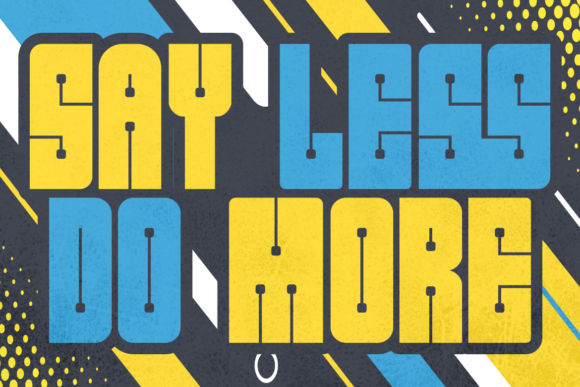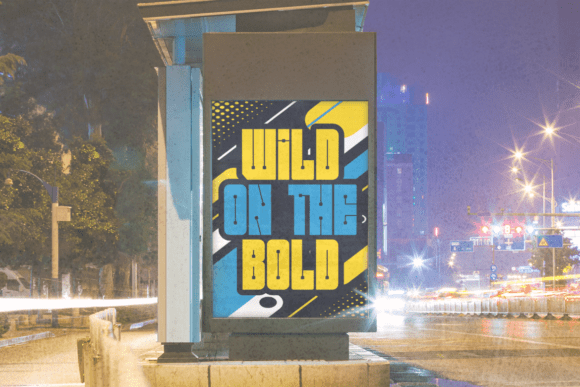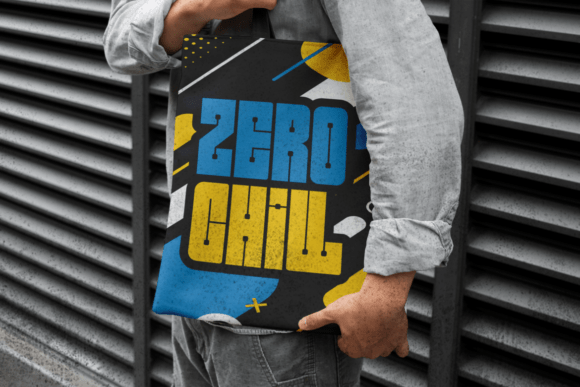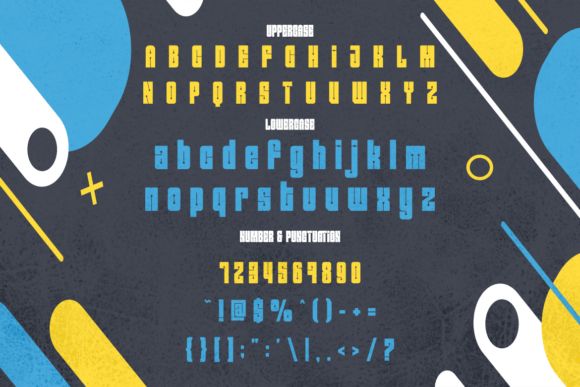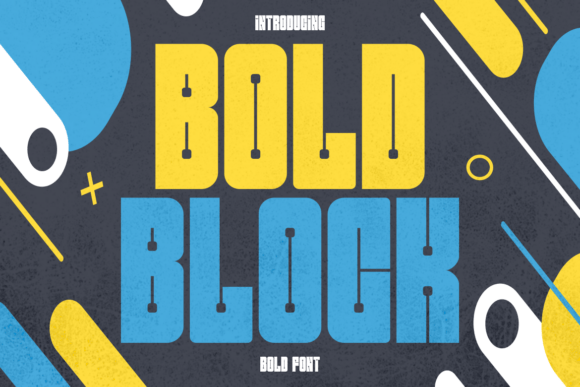
Designing for Impact: The Power of Bold Typography
Have you ever been brainstorming a design concept, and suddenly, the perfect font pops into your mind? That’s exactly what happened to me when I stumbled upon the Bold Block Font. Its ultra-heavyweight form and tight, condensed structure screamed ‘headline’ – and I knew I had to learn more.
Bold Block Font is a display font engineered to command attention. Its skyscraper-like letters dominate visual space with minimal gaps, making it perfect for high-contrast layouts. With rounded corners and internal dot-stroke motifs, it adds a touch of modern sophistication to its geometric verticality. Whether you’re designing posters, merchandise, or signage, Bold Block delivers maximum impact in minimum space.
As a designer, you’ll love the versatility of the Bold Block Font. It’s a top choice for headlines, apparel designs, music covers, gaming logos, and streetwear campaigns – anywhere a loud, confident tone is required. Its all-caps uppercase and solid lowercase construction make it a valuable addition to your design toolkit.
Bold Block Font Key Features
- Font Family: The Bold Block Font is a custom-designed sans-serif typeface, optimized for digital display.
- Character Set: The font includes a comprehensive set of characters, including uppercase and lowercase letters, numbers, punctuation marks, and special characters, ensuring compatibility with multiple languages.
- Unique Characteristics: The Bold Block Font features a distinctive, bold aesthetic with clean lines and a sturdy feel, making it ideal for headlines, titles, and other display typography.
Bold Block Font Review
I recently had the chance to work with the Bold Block Font, and I must say it’s a mixed bag. Here are my thoughts:
- Clarity: The font is incredibly clear and easy to read, even at smaller sizes.
- Legibility: The bold strokes make it perfect for headings and titles, where you want to grab attention.
- Consistency: The font is consistent across different platforms and devices, which is a big plus.
- Lack of personality: The font is a bit too straightforward and doesn’t have a unique character.
- Not ideal for body text: While it’s great for headings, it can be a bit too bold and overpowering for regular body text.
- Not as versatile: It’s not suitable for a wide range of designs, especially those that require a more subtle or elegant feel.
Overall, I think the Bold Block Font is a solid choice for certain projects, but it’s not a one-size-fits-all solution. It’s great for bold, attention-grabbing headings, but may not be the best fit for more delicate or nuanced designs.
Tips for Getting the Most Out of Bold Block Font
Use Bold Block Font to draw attention to important information, highlight key points, or add emphasis to your text.
Combine Bold Block Font with other design elements, such as colors and images, to create a visually appealing and engaging design.
Bold Block Font is commonly used in:
- Call-to-actions (CTAs)
- Emphasizing key statistics or data
- Creating a sense of urgency or importance
Yes, Bold Block Font is available in various weights, from Light to Extra Bold. You can choose the weight that best suits your design needs. Additionally, Bold Block Font supports ligatures, which can be enabled or disabled depending on your design requirements. You can also use font editors or design software to customize the font for specific design elements or logos.